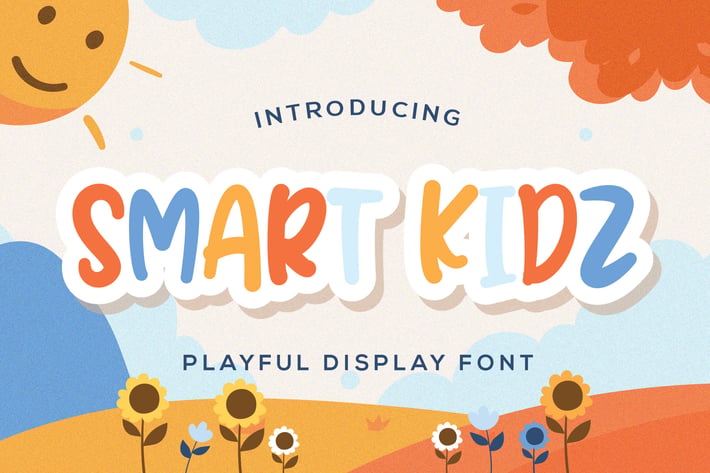
Smart Kidz - Playful Display Font
Introducing Smart Kidz - Playful Display Font
Smart Kidz is a fun and chunky lettered display font. Playful and fresh, this font will be a hit for each of your children or school projects!